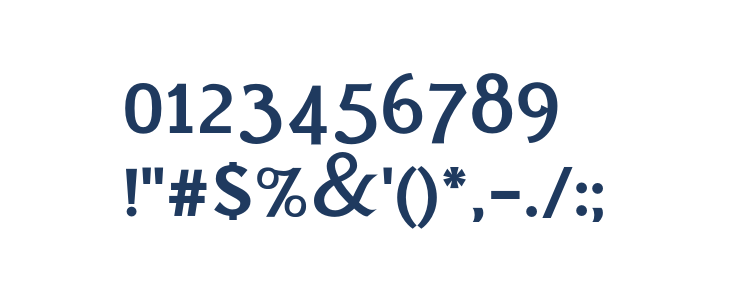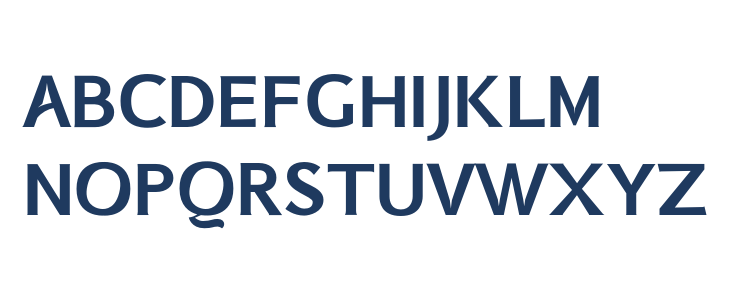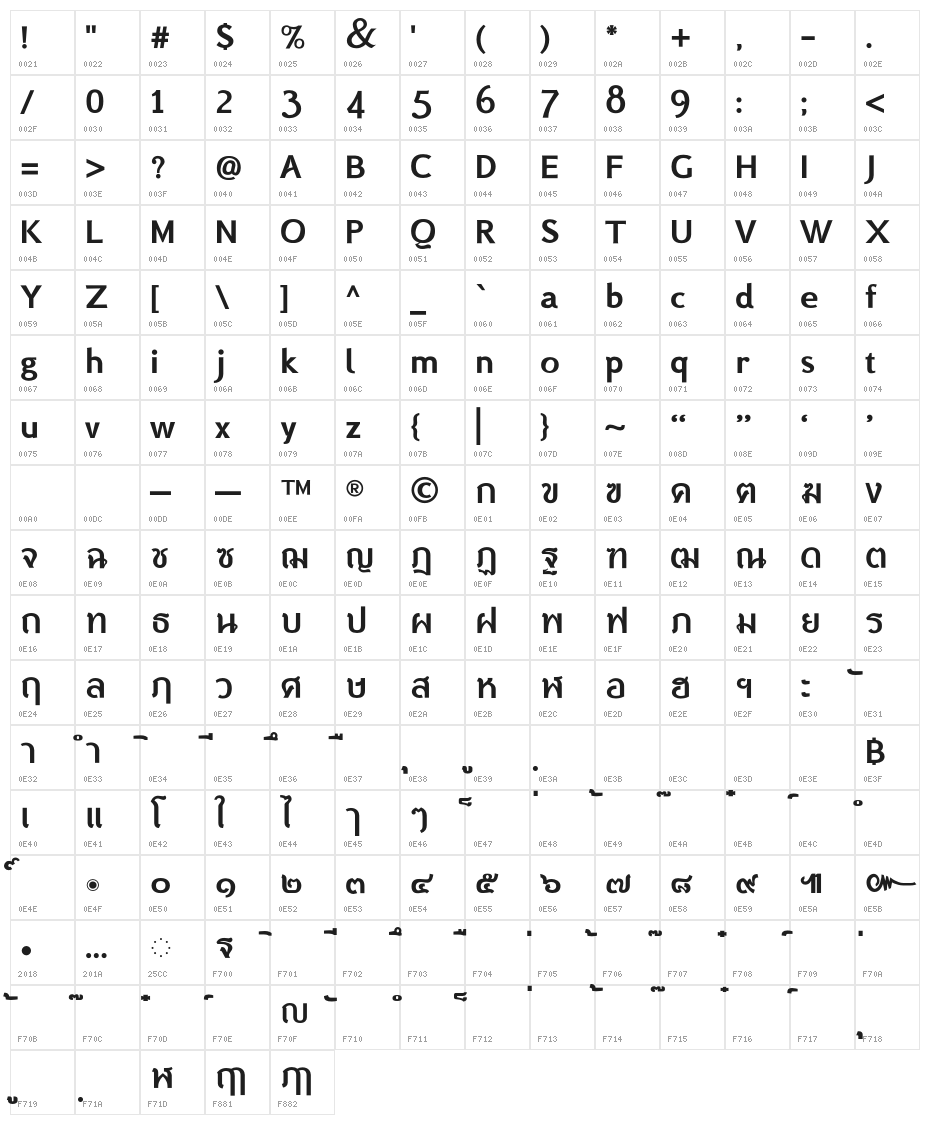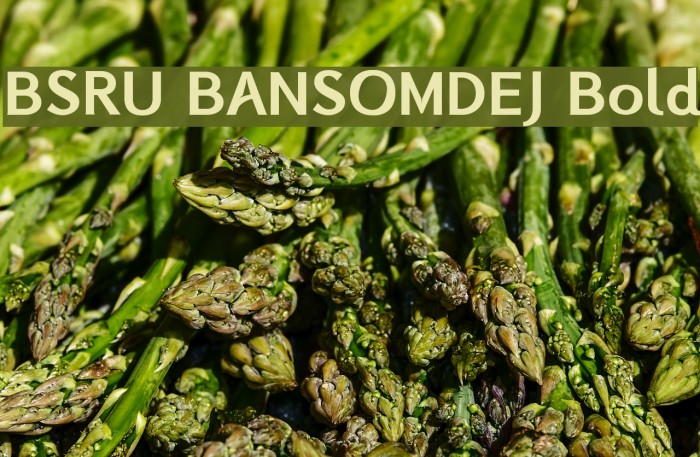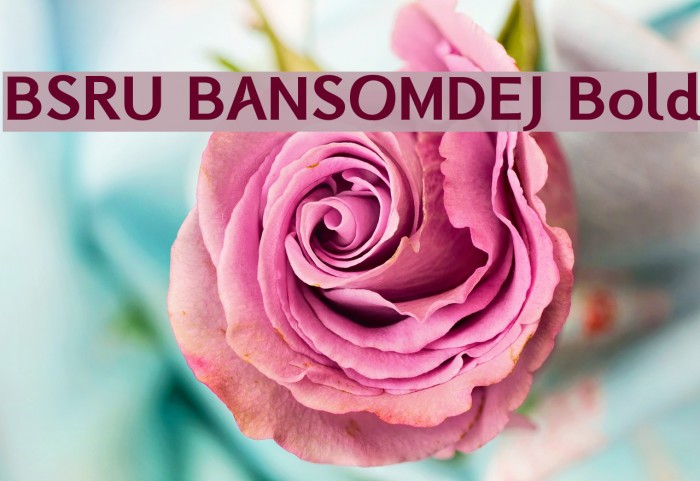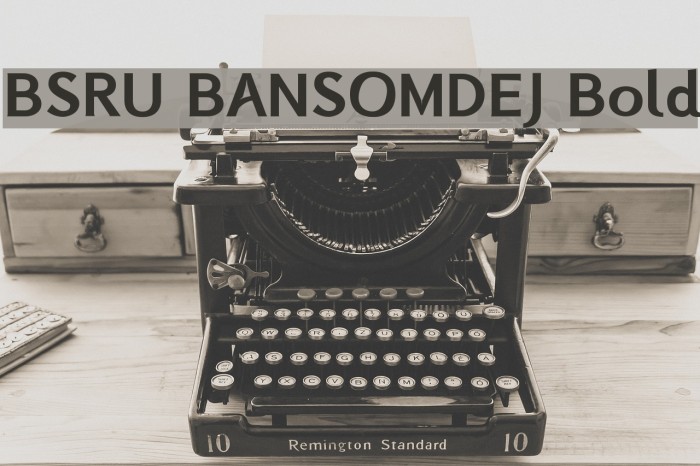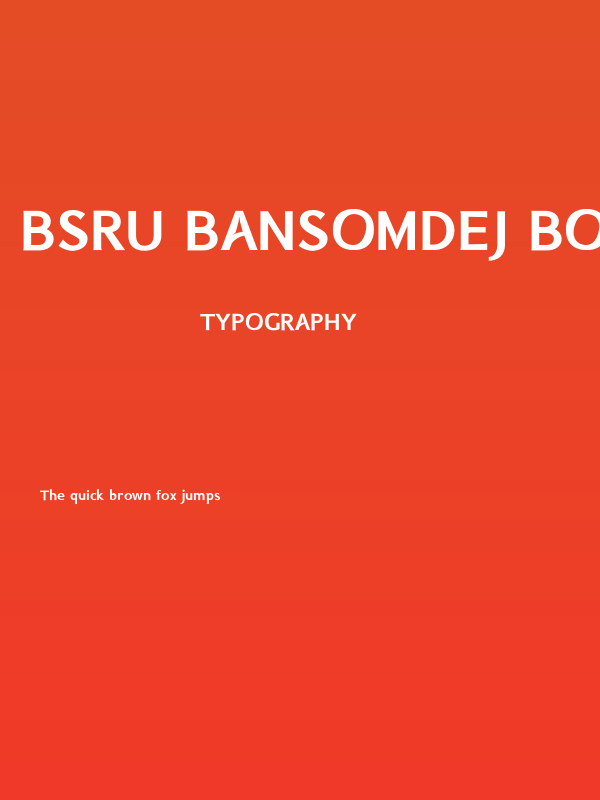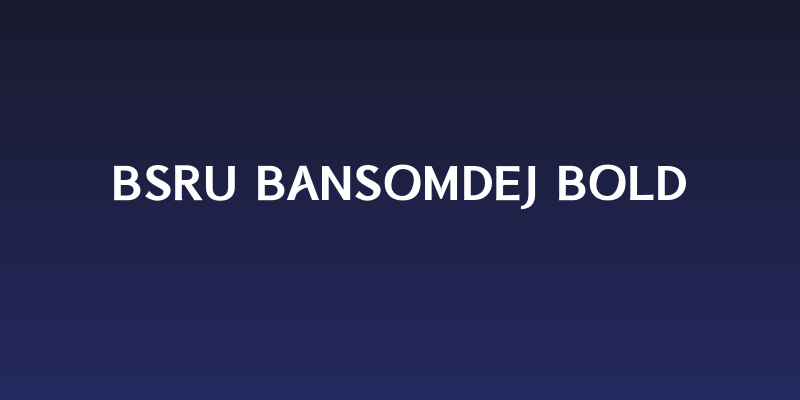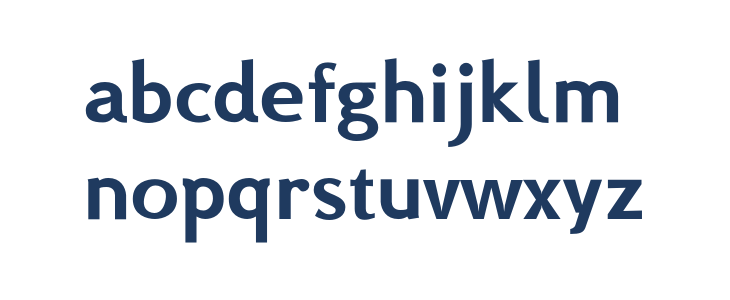
BSRU BANSOMDEJ Bold Font
BSRU BANSOMDEJ Bold Description
This font features a bold and assertive style with clean, sharp lines and a modern aesthetic. The uppercase letters are strong and commanding, while the lowercase letters maintain a consistent weight, providing a harmonious balance. The numerals are clear and legible, making them suitable for various applications. Special characters are well-defined, adding versatility to the font's use. The overall design is sleek and contemporary, making it ideal for projects that require a bold statement.
| Proposed Projects | Ideal for branding, headlines, posters, and advertising materials. |